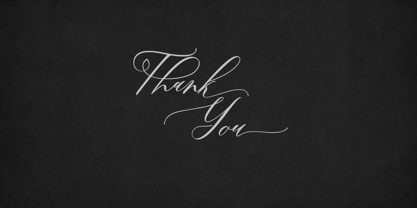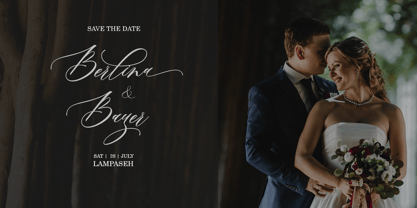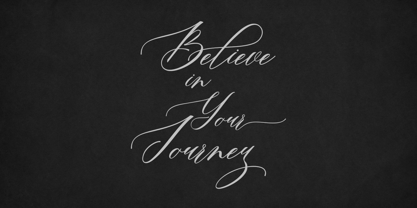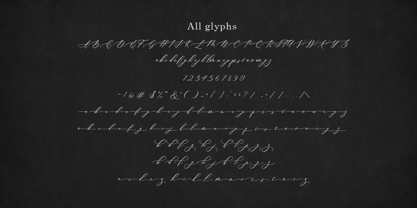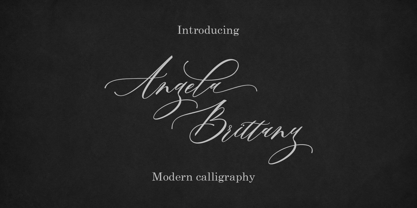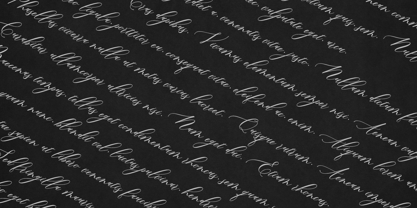
Angela Brittany
by Amarlettering
The Angela Brittany Font Family was designed by Amar Lettering and published by Amarlettering. Angela Brittany contains 1 styles. More about this family
Introducing Angela Brittany, a captivating amalgamation of timeless elegance and modern allure, embodied tastefully in a sleek typeface. This font’s gracefully fluid strokes and gently curved characters subtly interplay with its inherent delicacy, bringing its exquisite aesthetics to life. Boasting incredible adaptability, Angela Brittany effortlessly graces design projects ranging from chic wedding invitations to premium branding designs and polished editorial layouts. Immerse yourself in the enchanting beauty of Angela Brittany, a harmonious blend of contemporary style and articulate design.
Designers: Amar Lettering
Foundry: Amarlettering
I'm a font designer based in Indonesia, passionate about creating unique and versatile typefaces. Inspired by Indonesia's rich cultural heritage and diverse visual traditions, I design fonts that blend functionality with artistic expression. My work includes a variety of styles, from calligraphy to expressive display fonts, crafted for brands, creatives, and digital platforms worldwide.